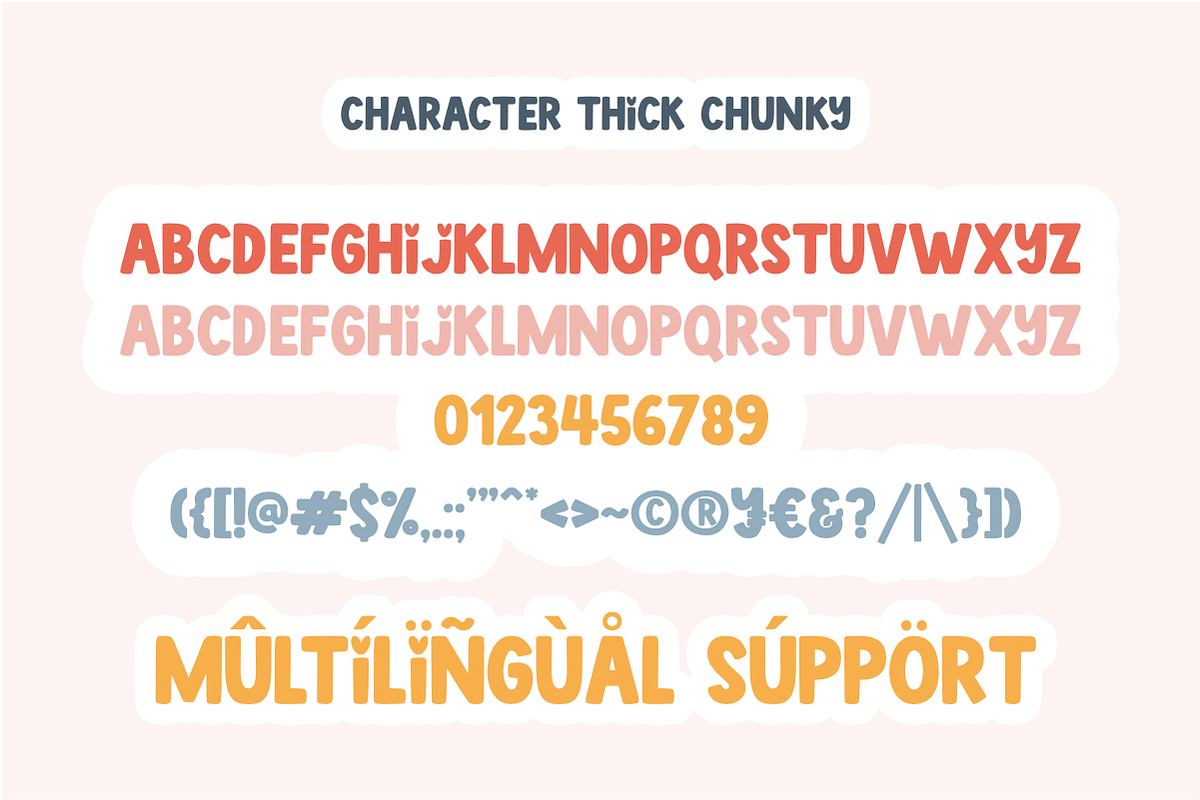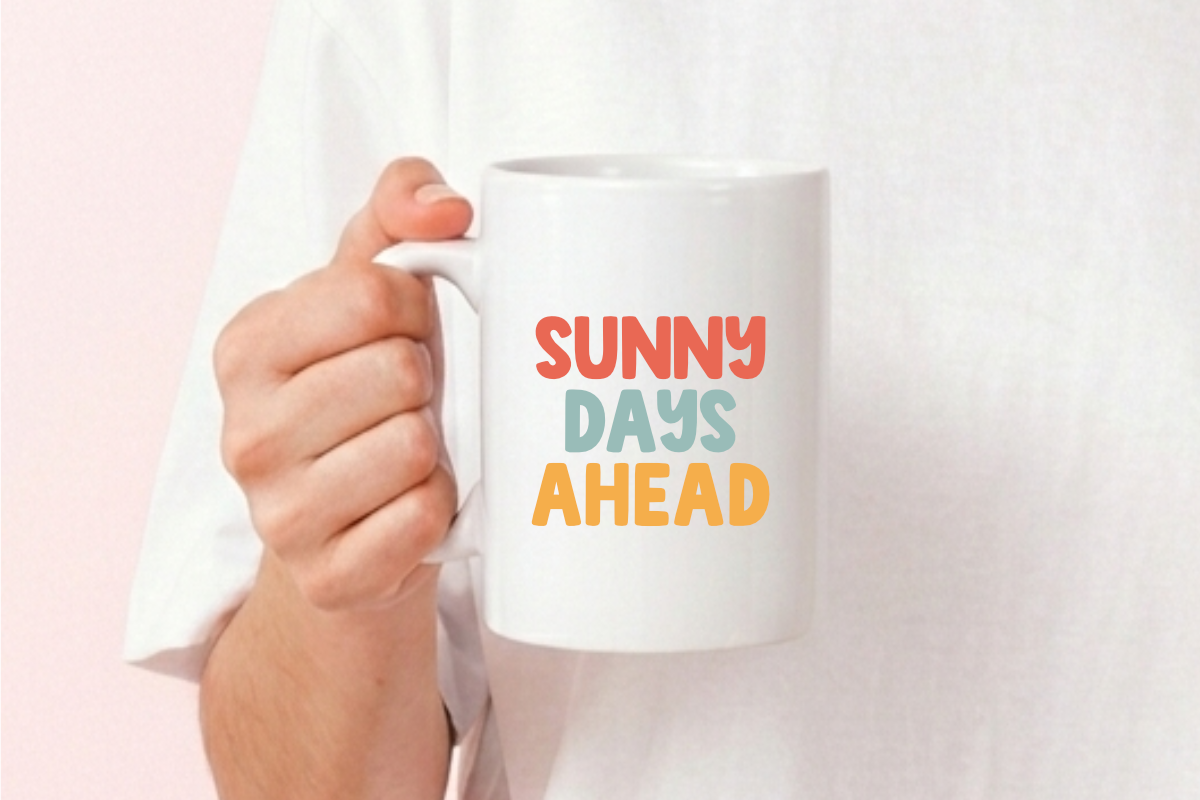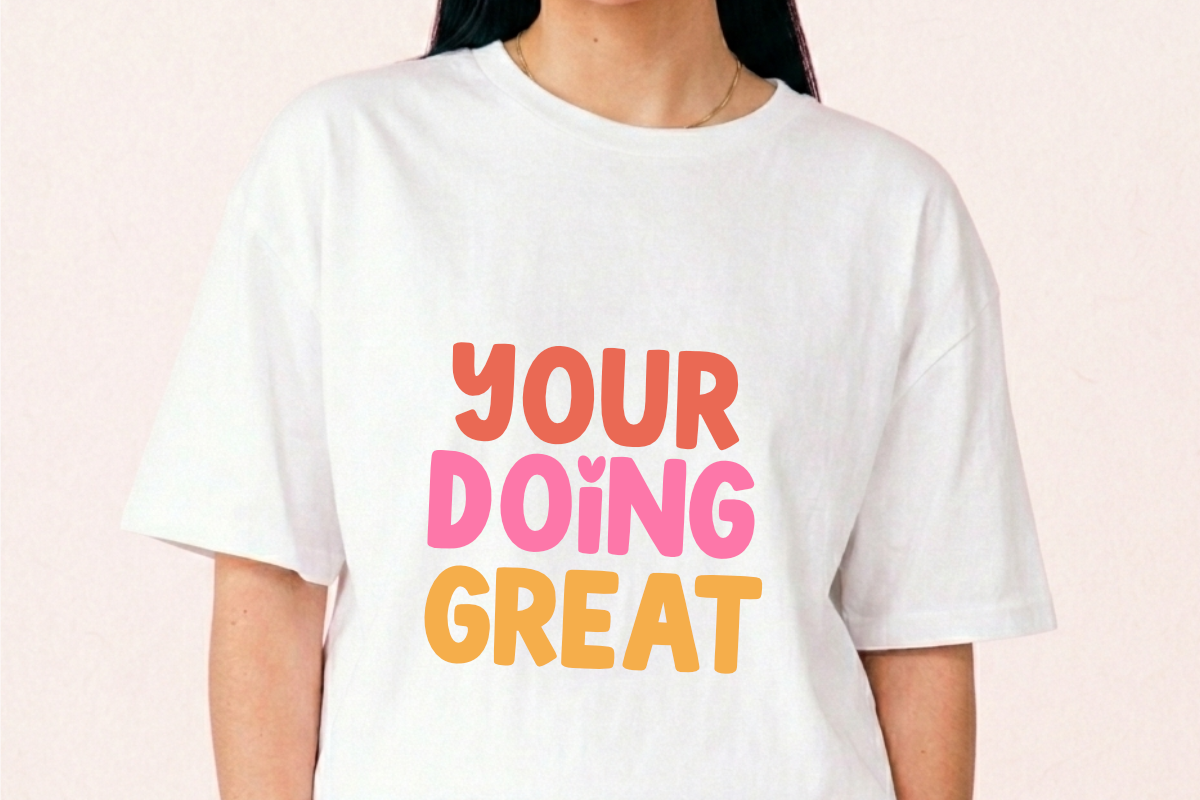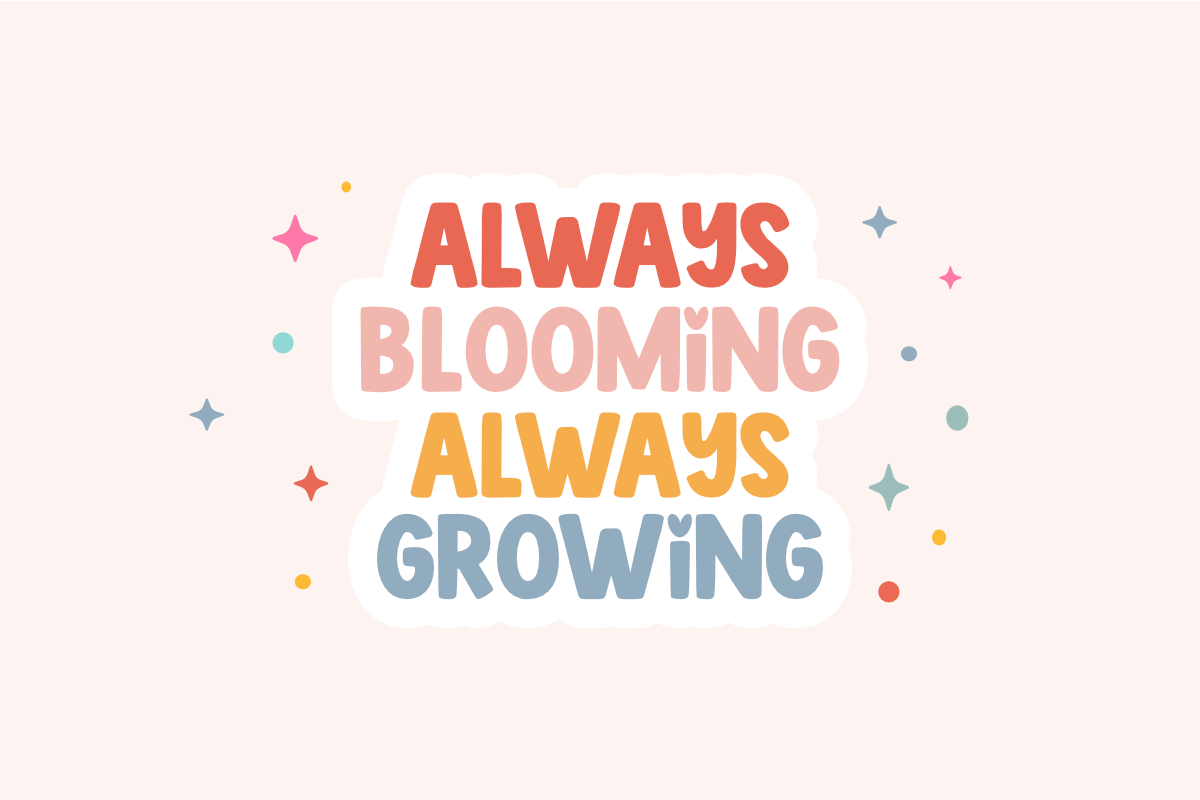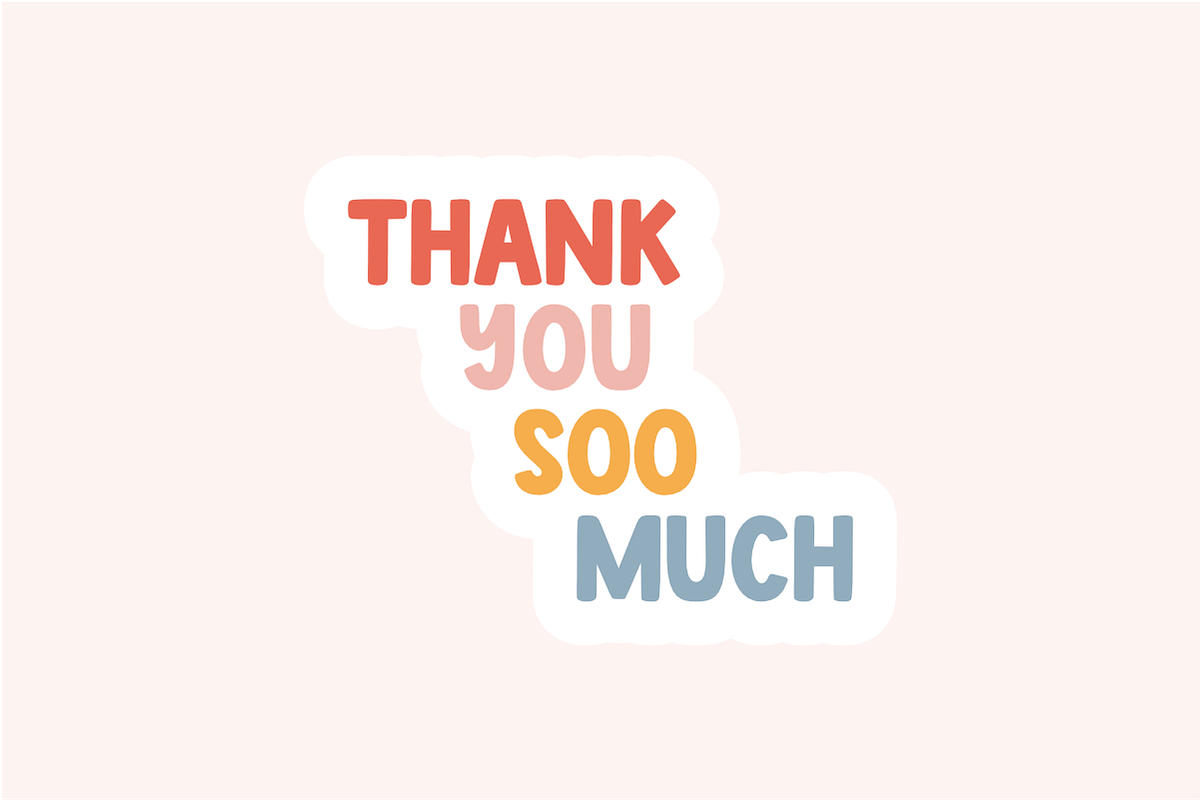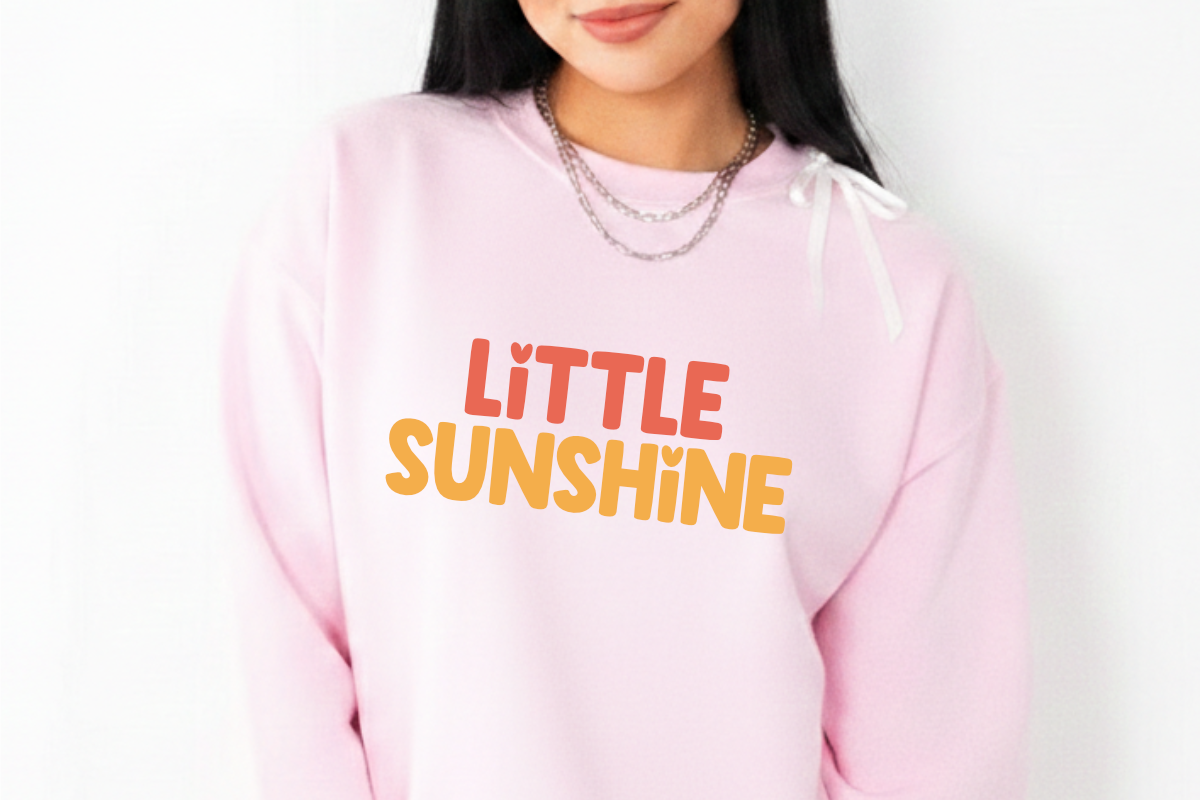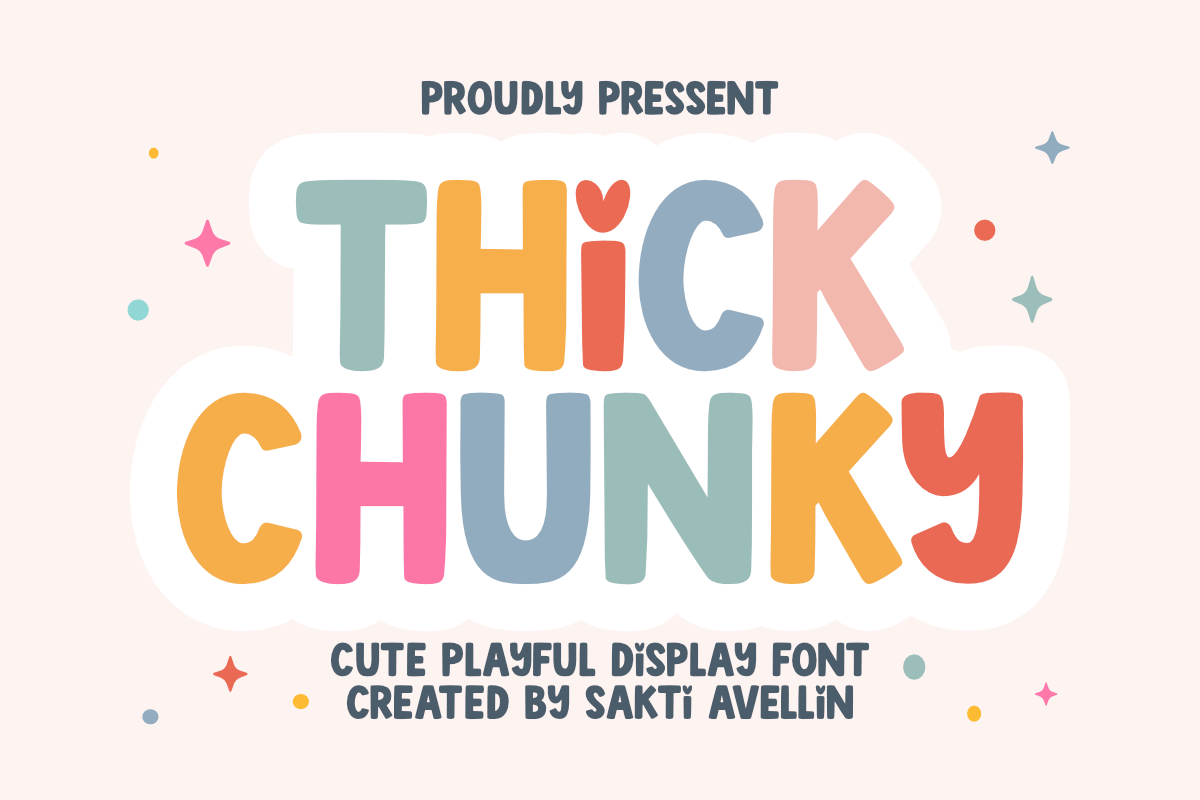
Thick Chunky - Playful Display Font
Thick Chunky is a cute playful display font designed to bring a joyful and bold personality to your creative projects. This thick bubbly typeface features rounded edges and whimsical details, such as the charming heart-shaped dot over the 'i', making it an ideal choice for children's branding, colorful stickers, nursery decor, and birthday invitations. Its energetic and handcrafted aesthetic ensures your headlines stand out with a friendly vibe. Whether you are designing toy packaging, summer apparel, or cheerful social media graphics, Thick Chunky adds a lovely and creative touch to every design.